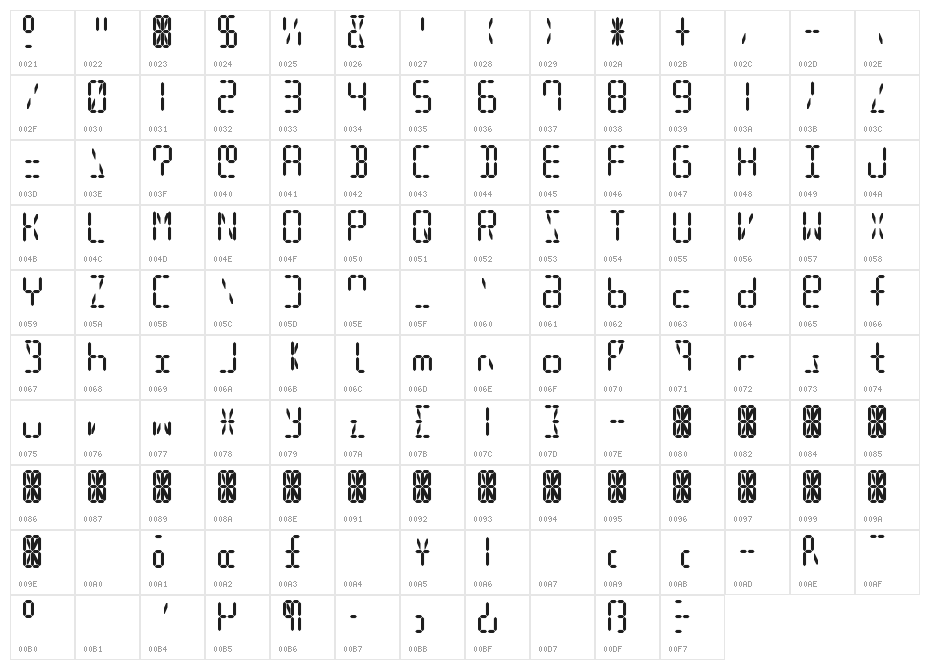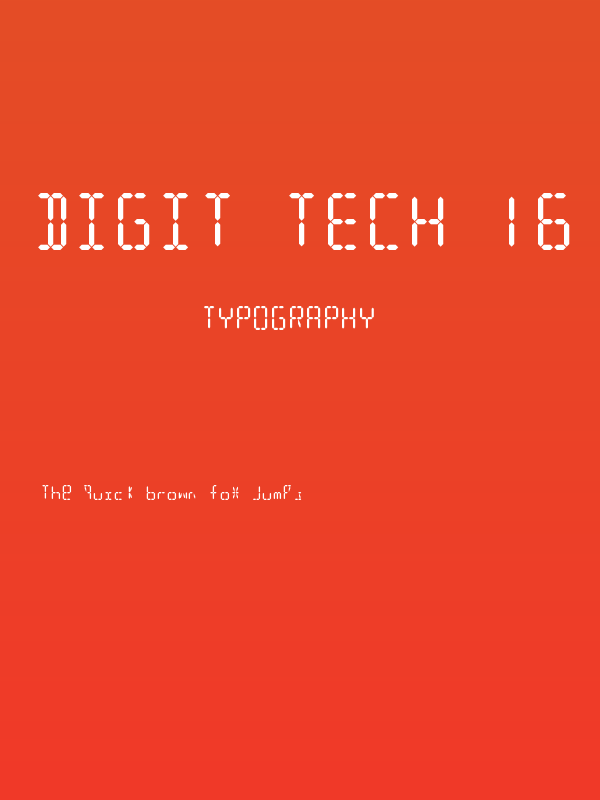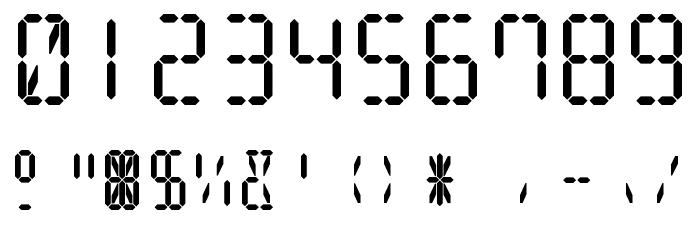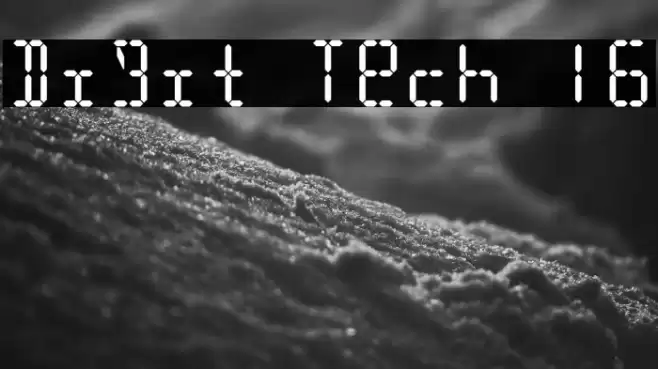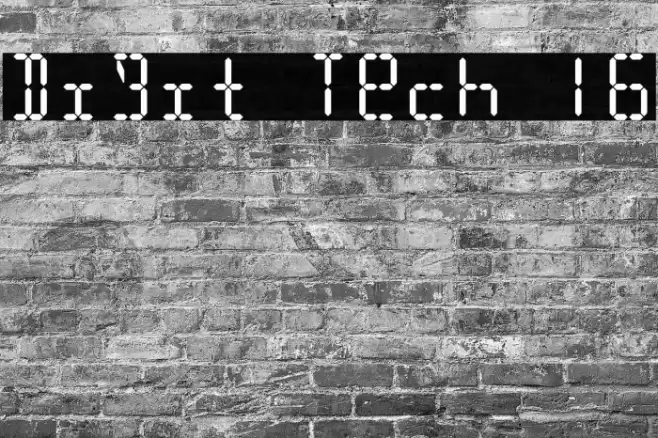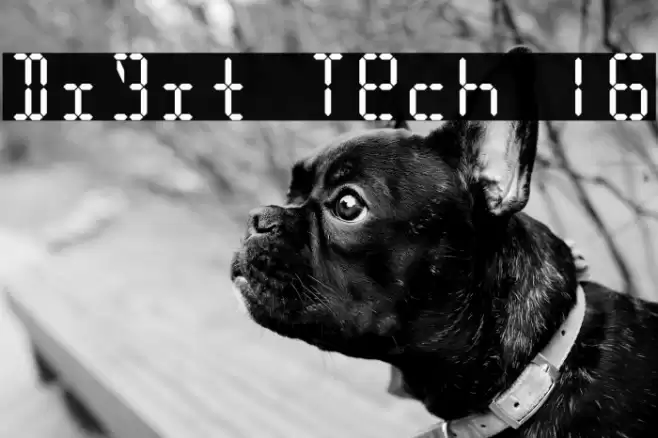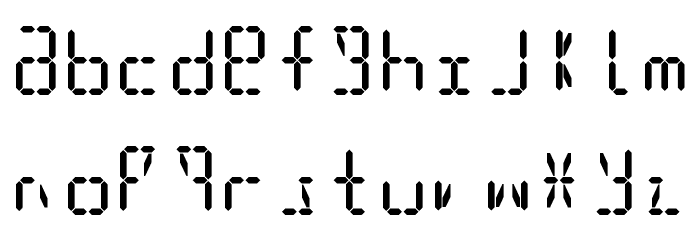
Digit Tech 16 Font
Digit Tech 16 Description
This font features a digital, segmented style reminiscent of classic digital displays, such as those found on calculators and digital clocks. Each character is constructed from a series of geometric segments, giving it a distinctly technical and modern appearance. The uppercase and lowercase letters maintain a consistent height and width, creating a uniform look across the board. Numbers and special characters follow the same segmented design, ensuring cohesion throughout the typeface. The font's design is minimalistic yet striking, making it ideal for projects that require a futuristic or technological aesthetic.
| Use Case | Headlines, Logos, Digital displays |
| Proposed Projects | Ideal for digital interfaces, tech-themed posters, electronic device branding, and futuristic designs. |